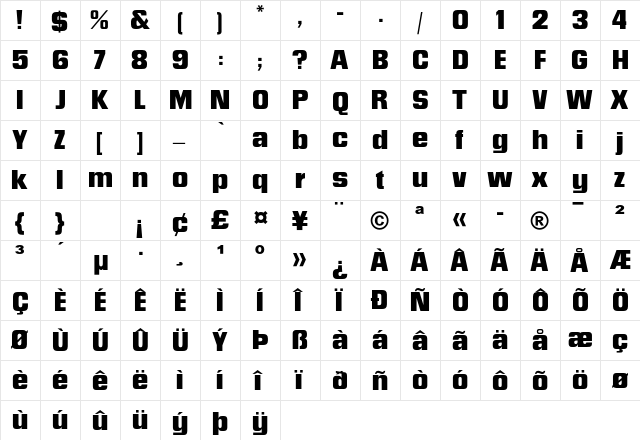
Neographik MT Std Regular
| Foundry | Agfa Monotype Corporation |
Design Context for Neographik MT Std Typeface
Neographik MT Std is a composed and adaptable typeface that performs quietly and consistently across a wide range of design contexts.